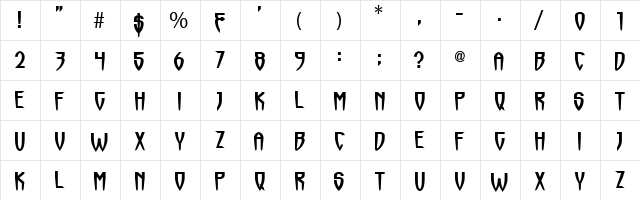
Horrormaster Semi-condensed Regular
| Foundry | Chad Savage |
| Designer | Chad Savage |
Design Context for Horrormaster Typeface
Horrormaster leans into the macabre with letterforms designed to disturb and intrigue in equal measure.
Ideal for Halloween projects, horror film titles, haunted house signage, and dark editorial design.
Font Pairing: Pair with a clean neutral sans-serif for body copy to let Horrormaster's character lead without overwhelming the composition.
Pro Tip: Horrormaster works best as a headline or focal element. Pair it against plain, neutral body text to amplify the contrast.